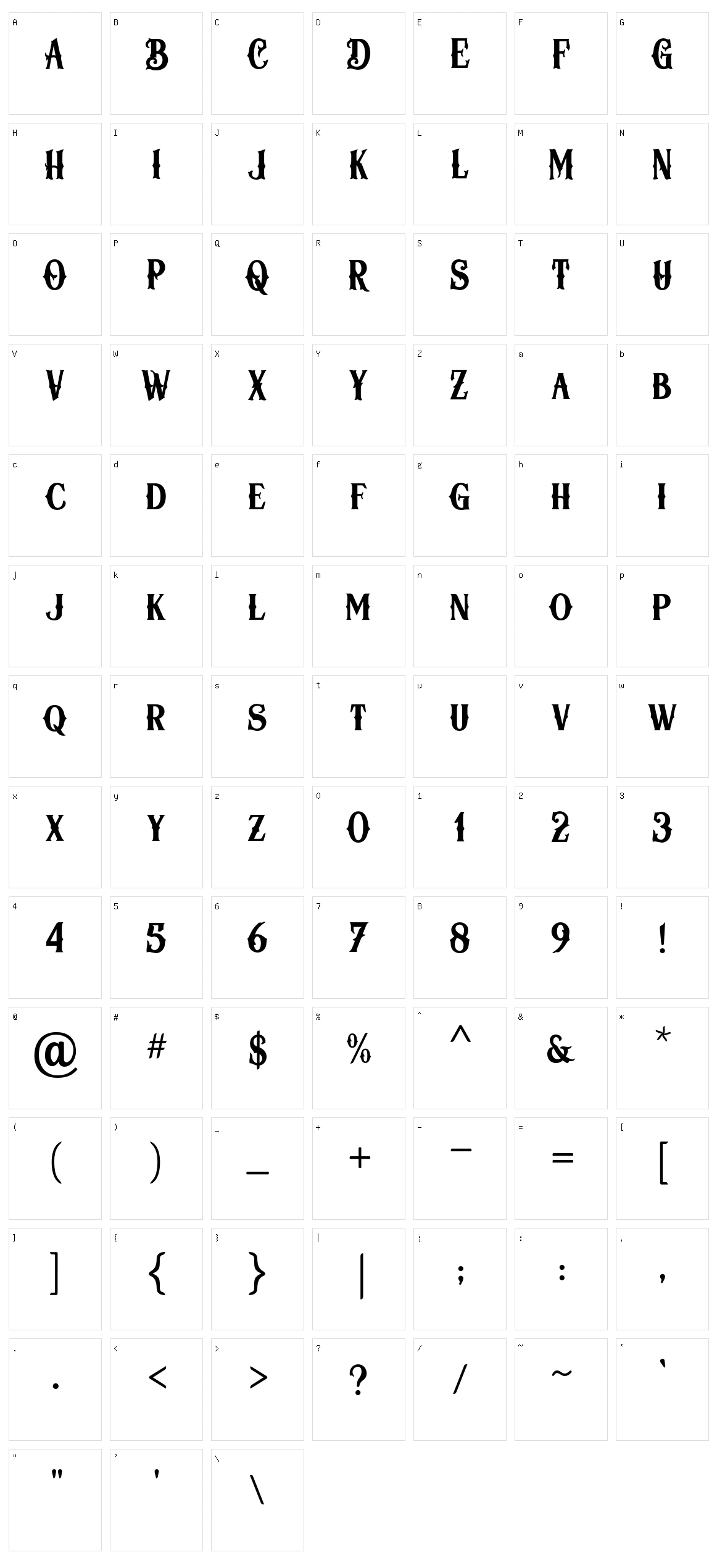
This is our font, Herosita. Herosita is vintage typeface which is inspired by vintage lettering sign. You can combine herosita with beautiful ornament vector to make beautiful design.
Herosita suitable to create design for logo, apparel, book cover, social media post, product packaging, label, store name, poster, mug design, wedding sign, etc.